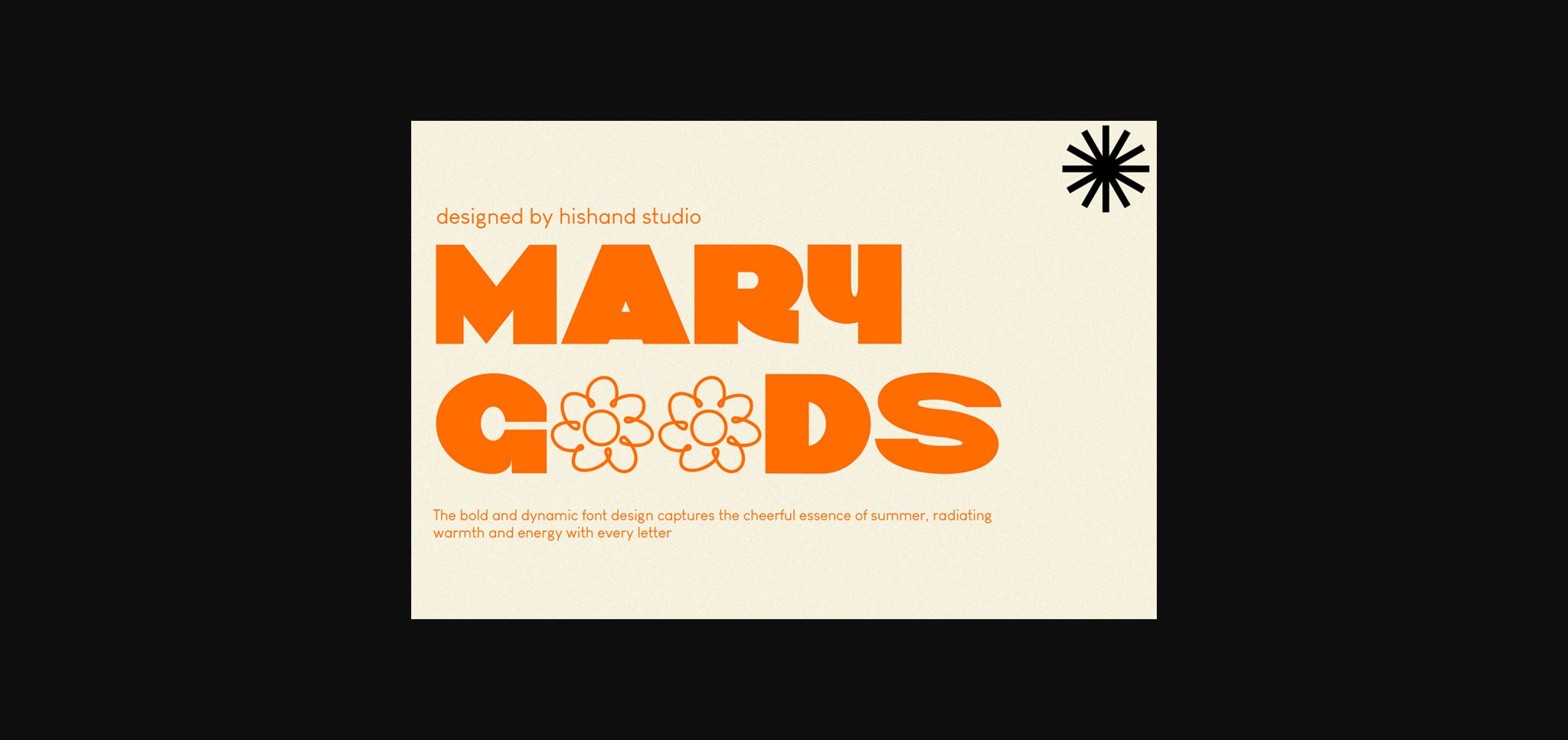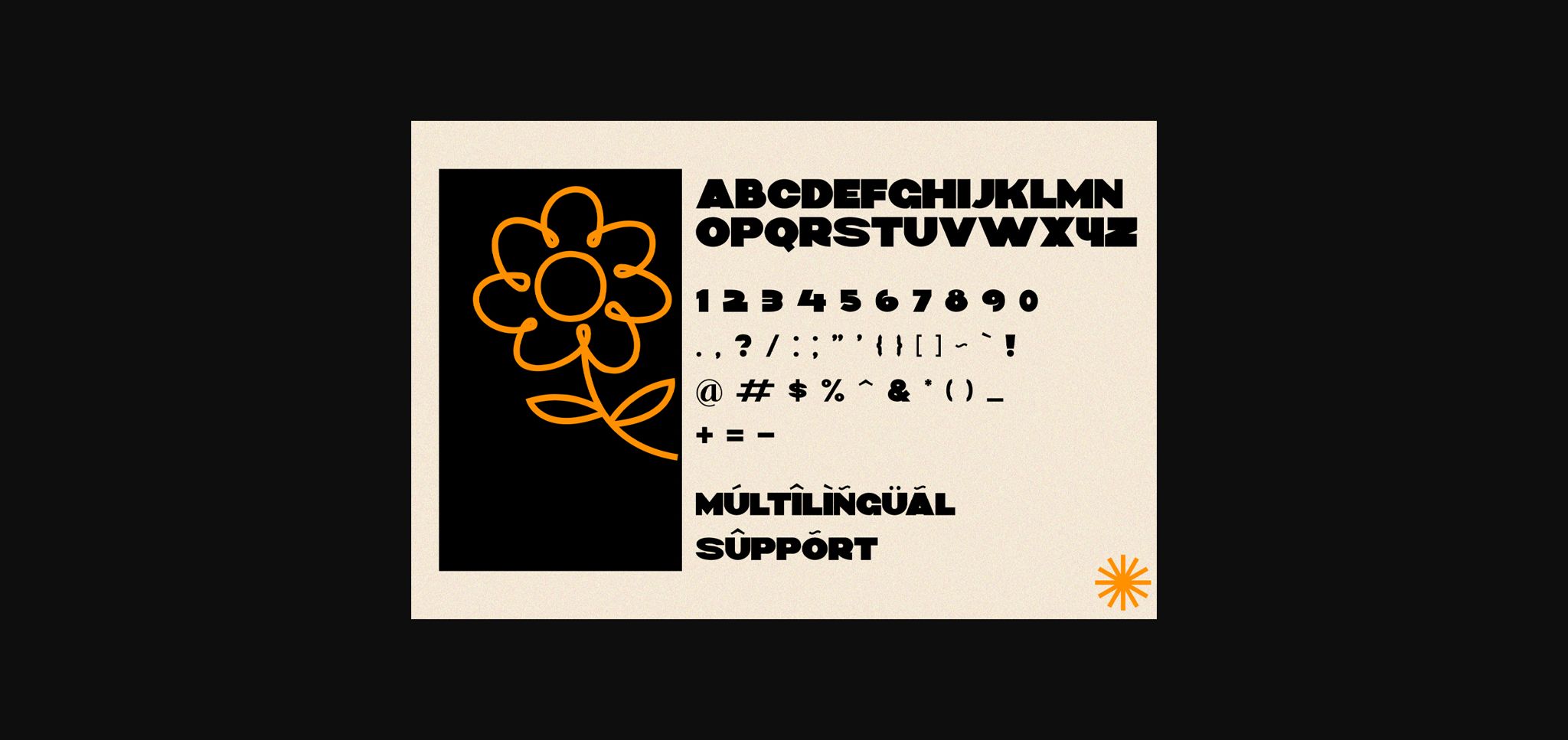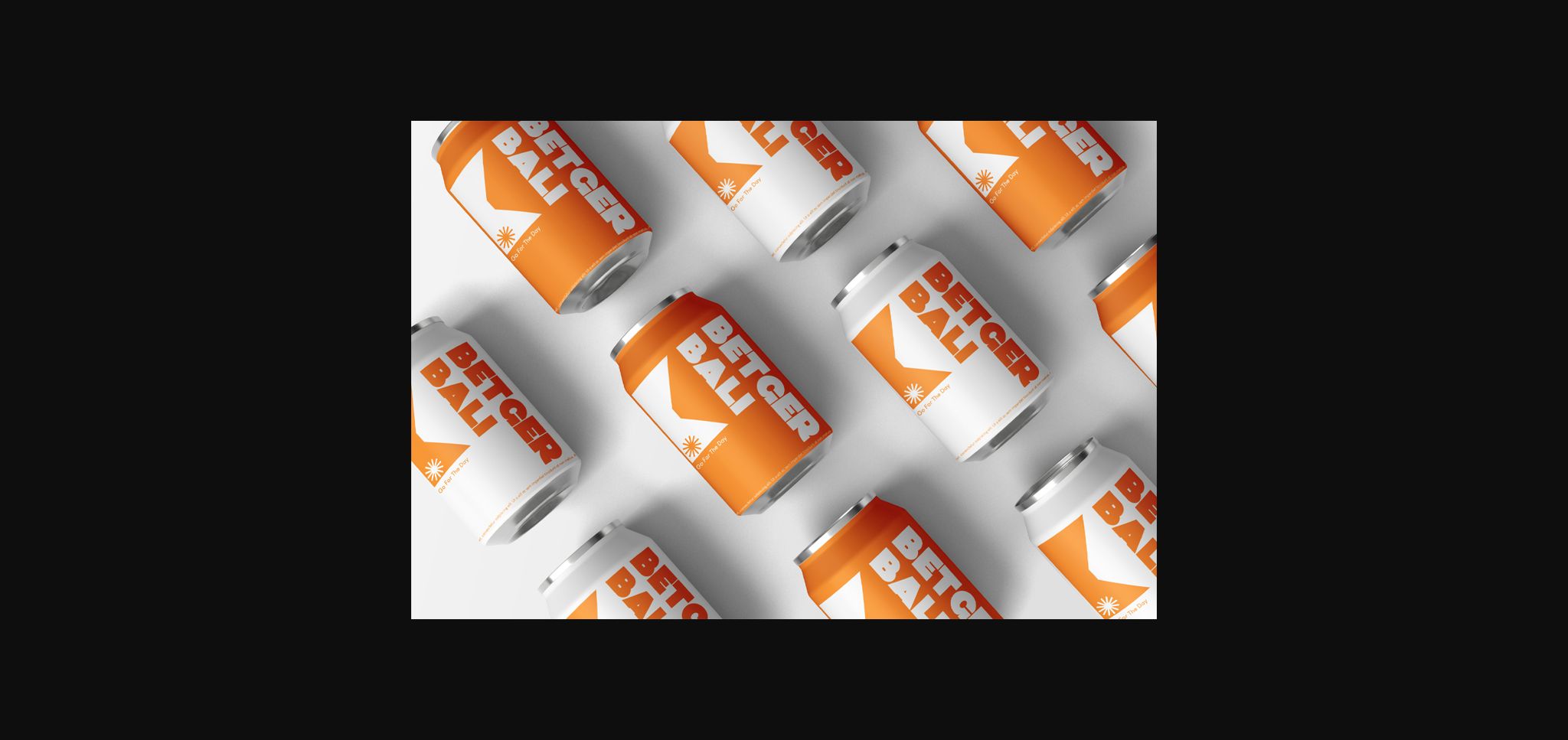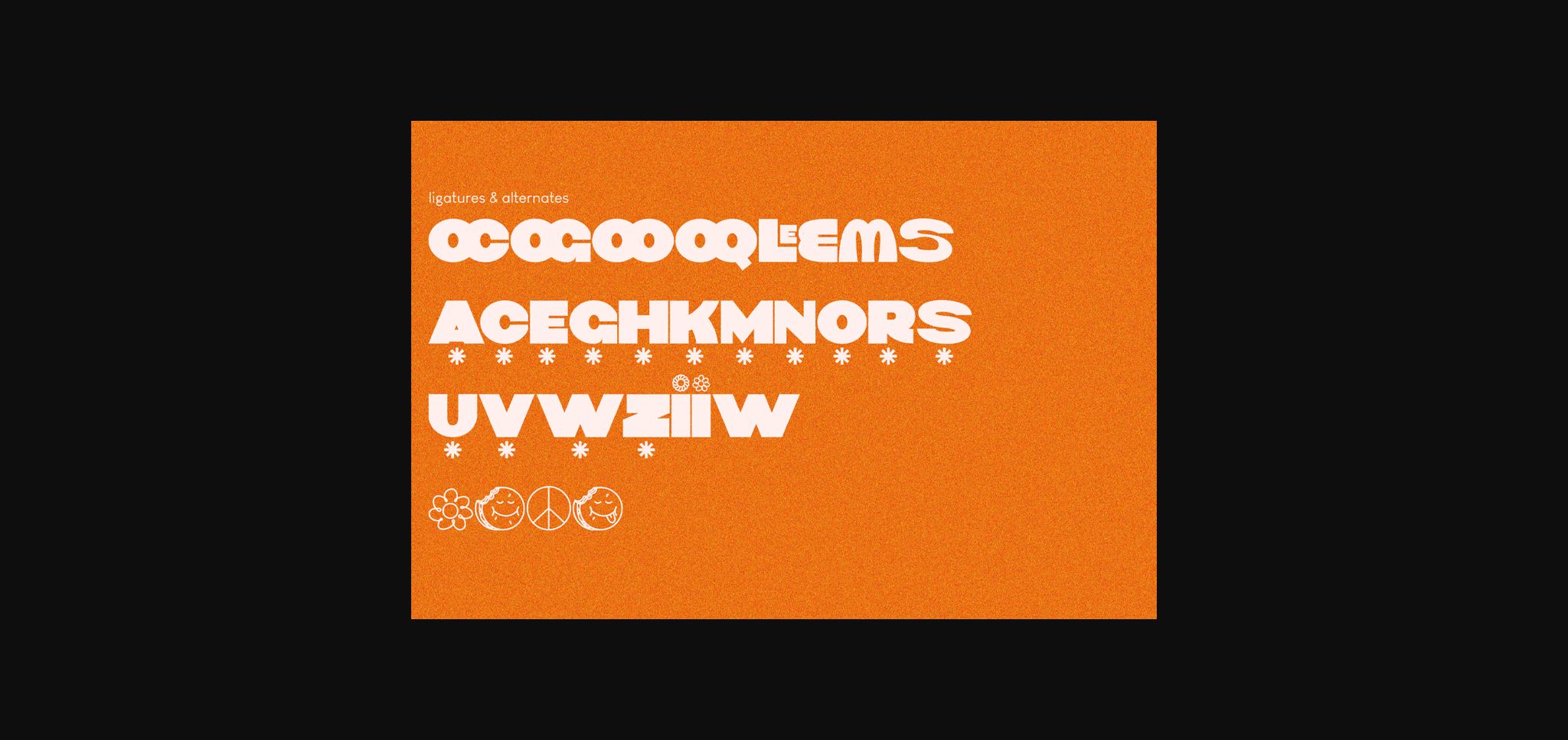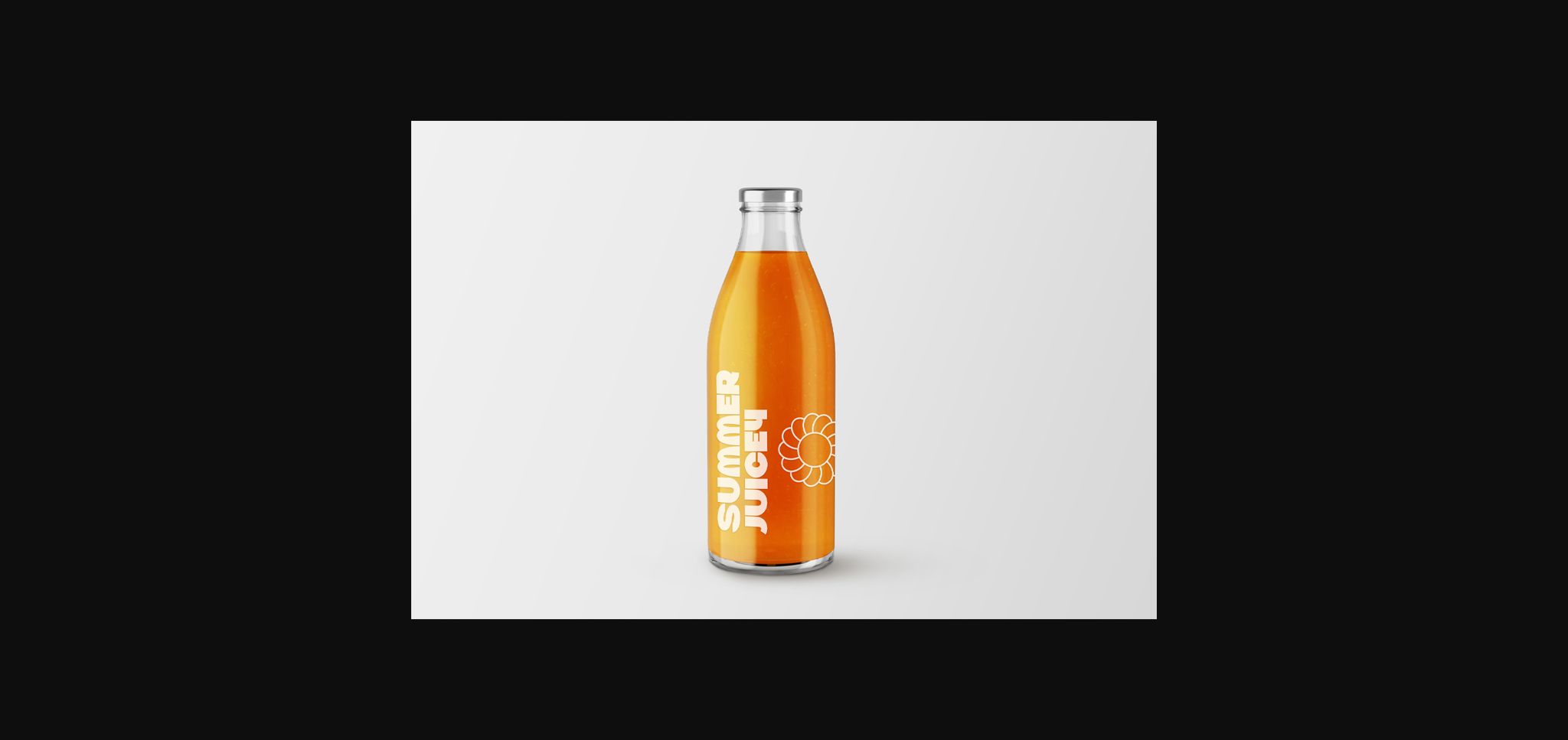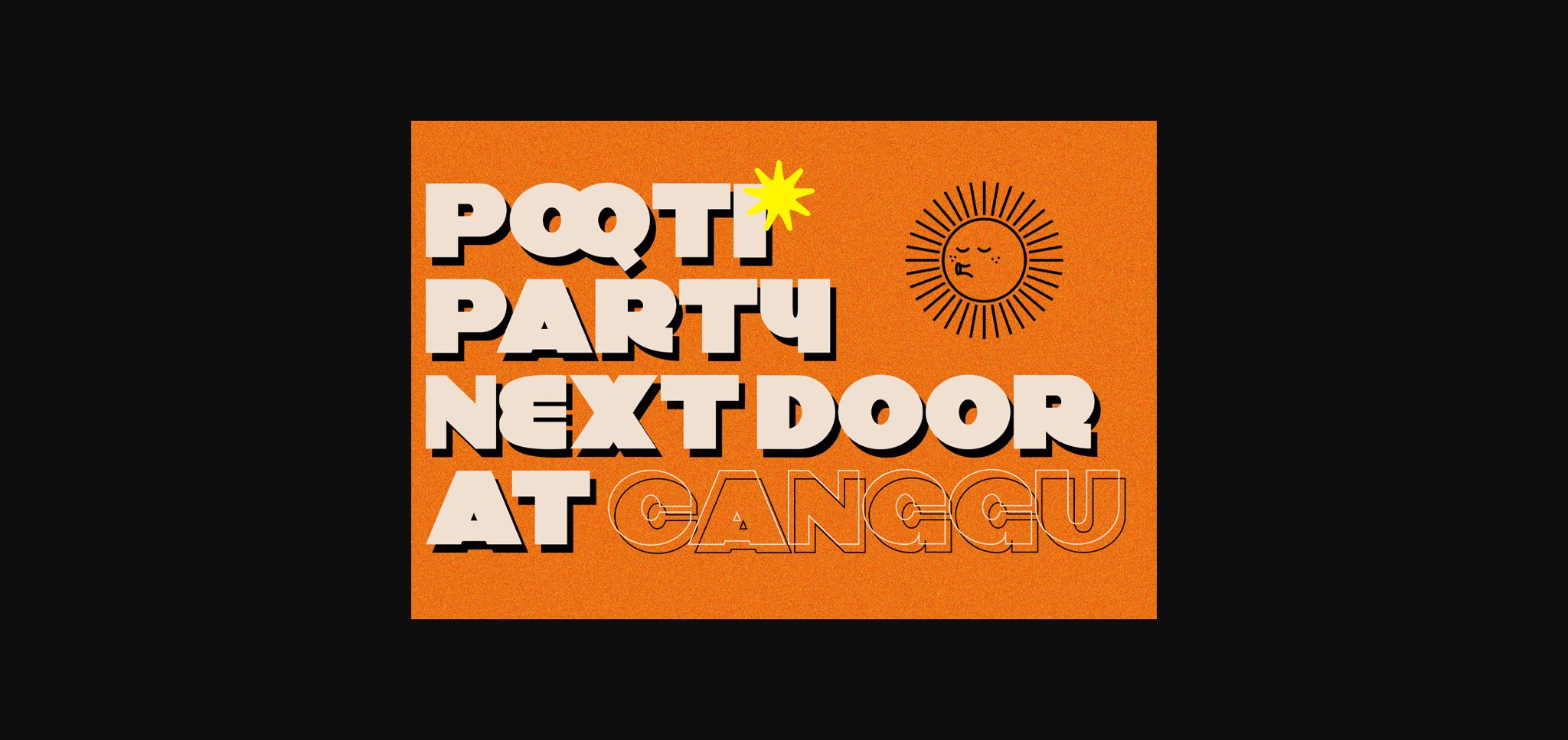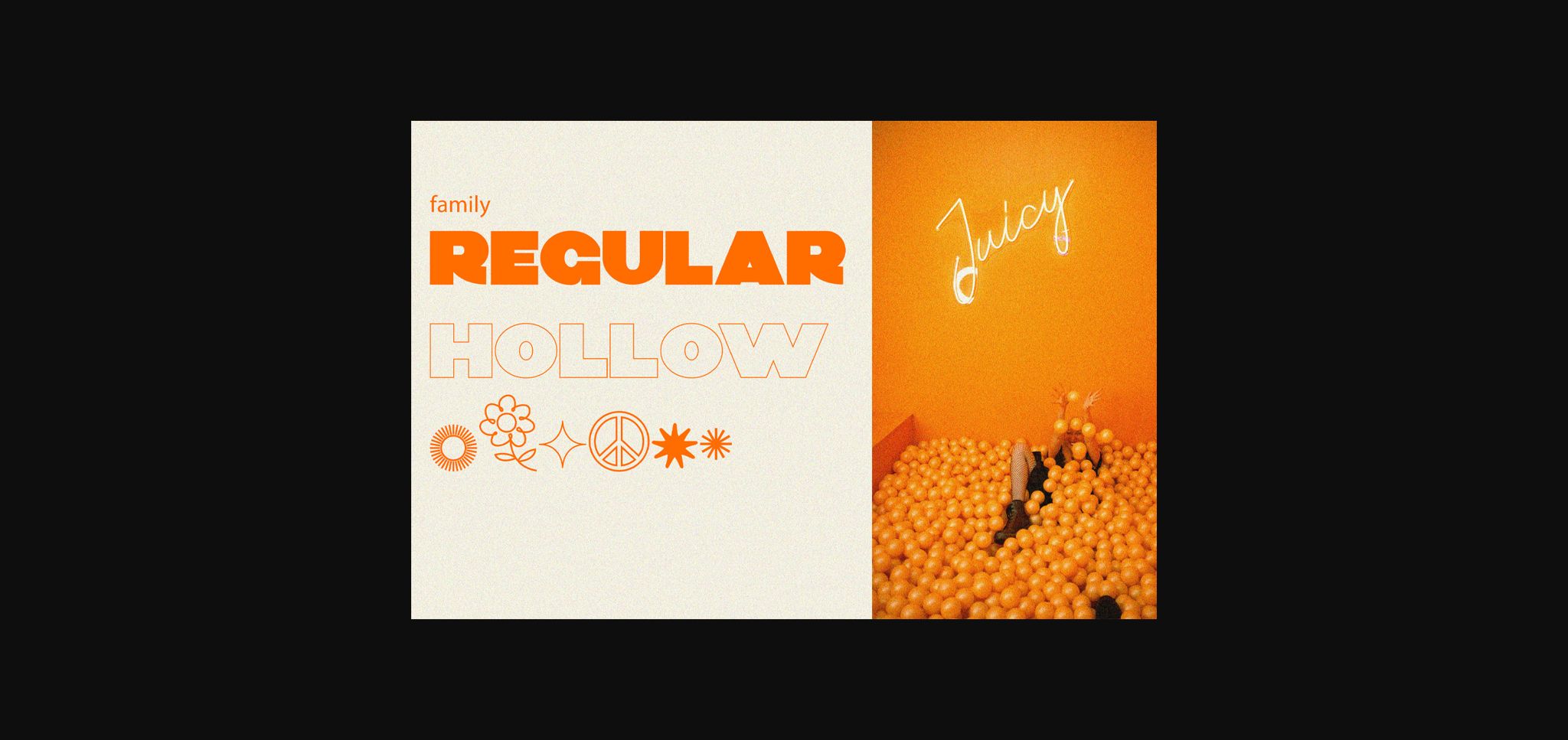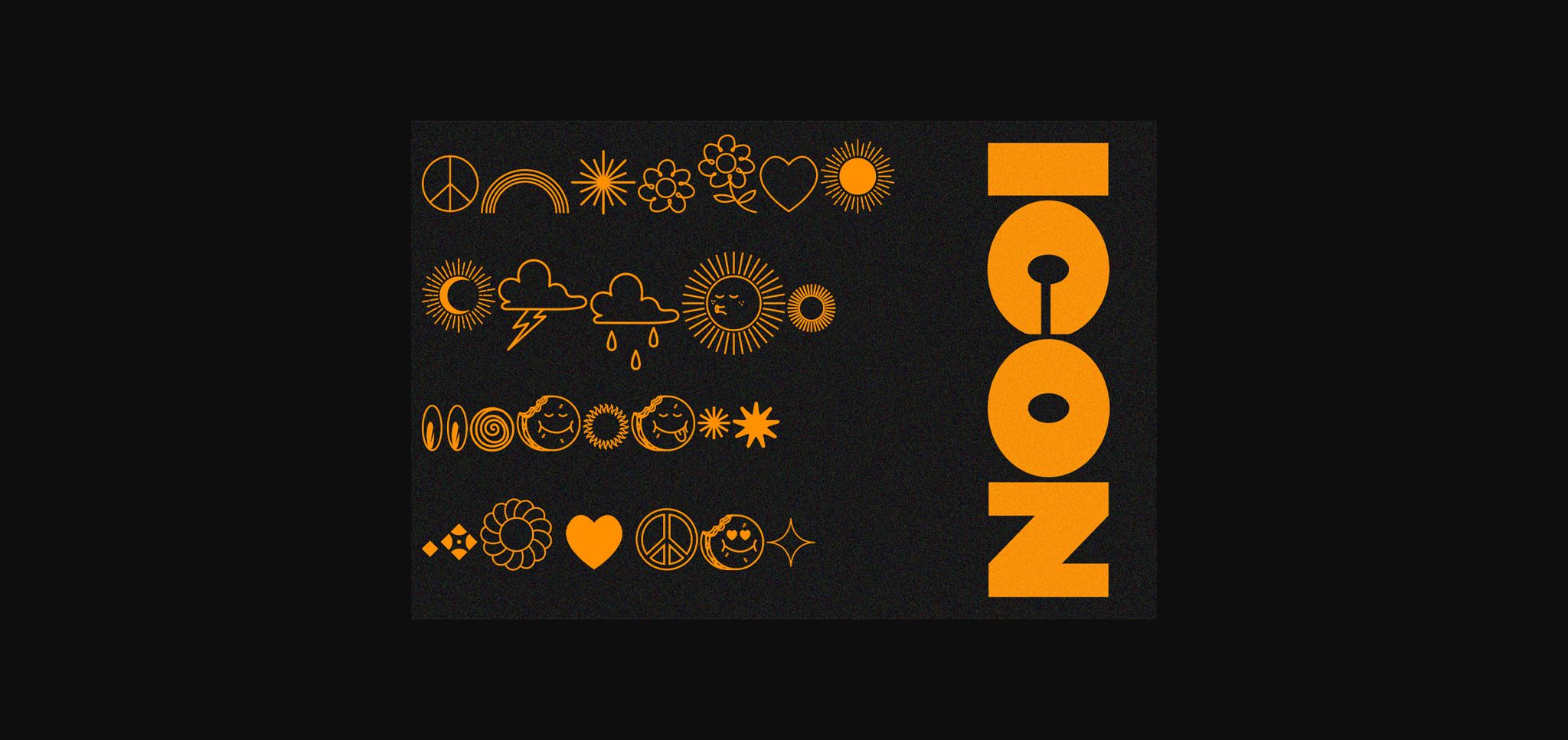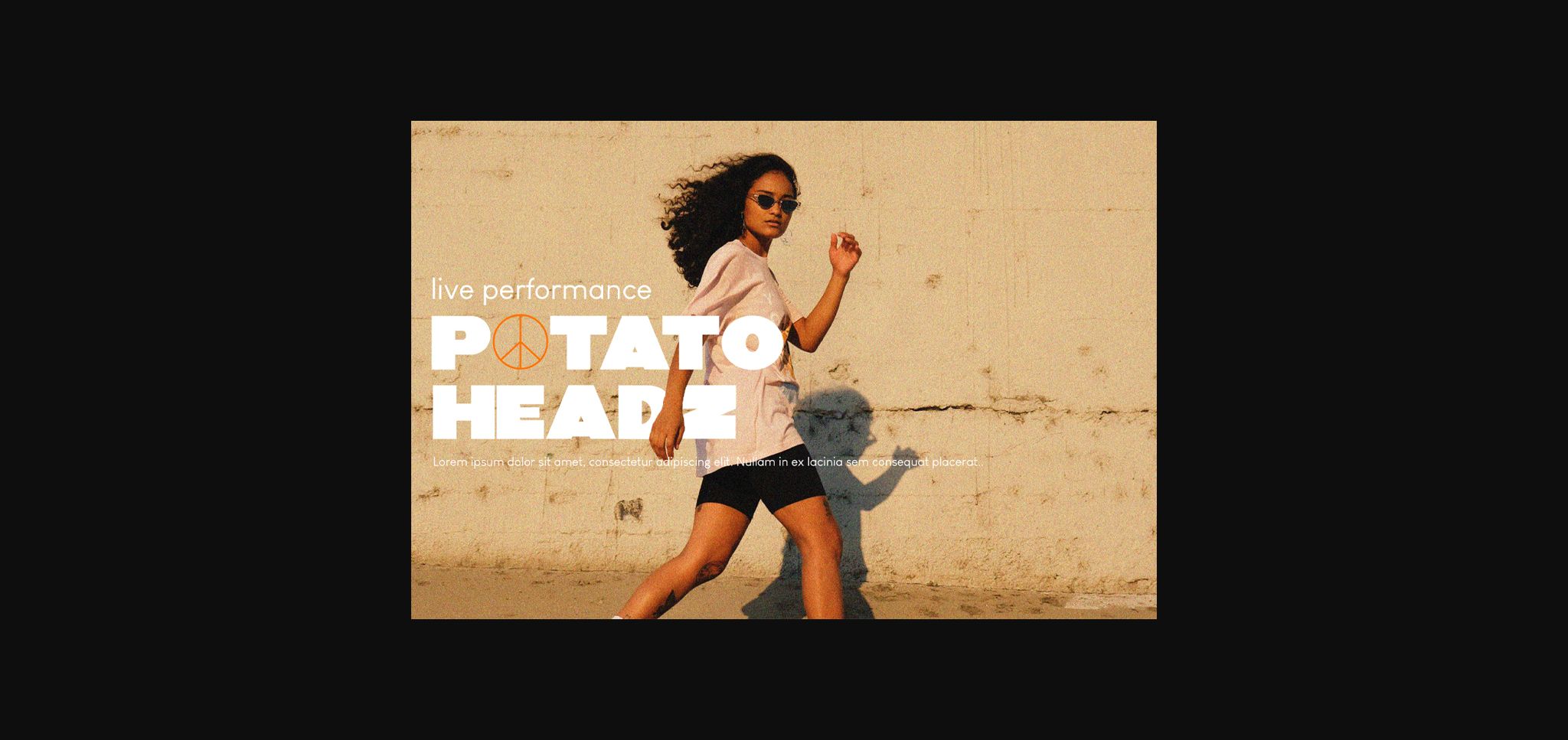
Mary Goods Font
About Mary Goods Font
Introducing MARY GOODS, the sans-serif bold font that’s perfect for making your brand, product, and design shine. MARY GOODS isn’t just a font it’s a branding powerhouse. Incorporate it into your design to instantly enhance your brand’s visual identity.